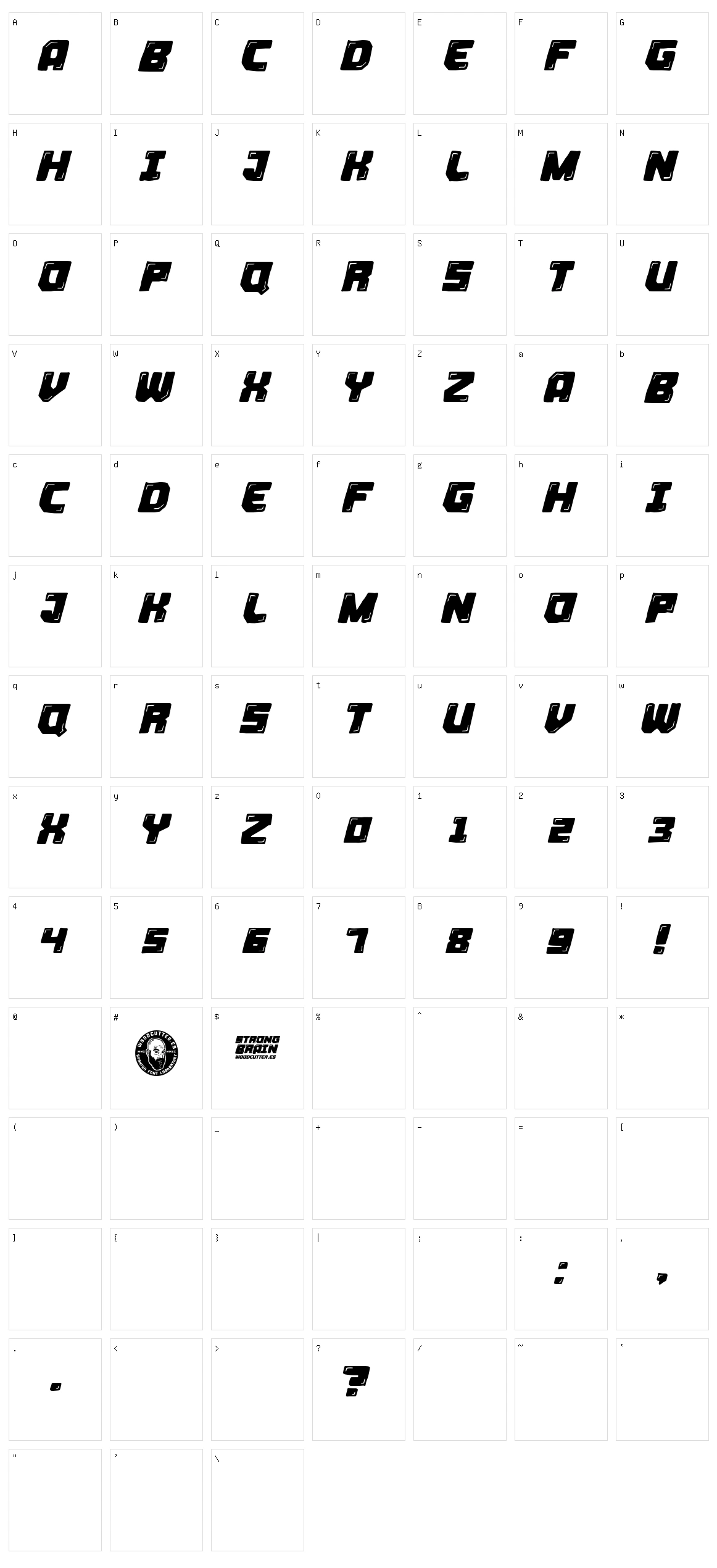
The free font Strong Brain is carefully designed by Woodcutter, showcasing a thoughtful balance of creativity and usability and falls under the Groovy font style. When you download the ZIP file, it contains only 47.35 KB of font files, making it lightweight and quick to download. Please review the license details below to understand permitted usage and distribution rights. If license information is not available, we recommend using this font for personal projects only or contacting the author directly for commercial usage permissions.